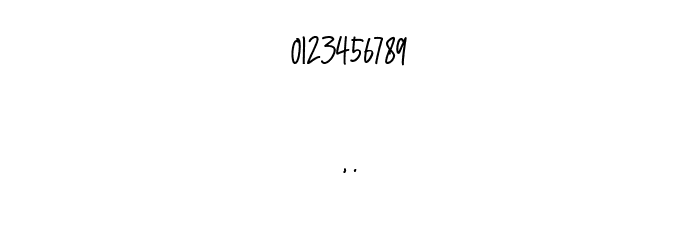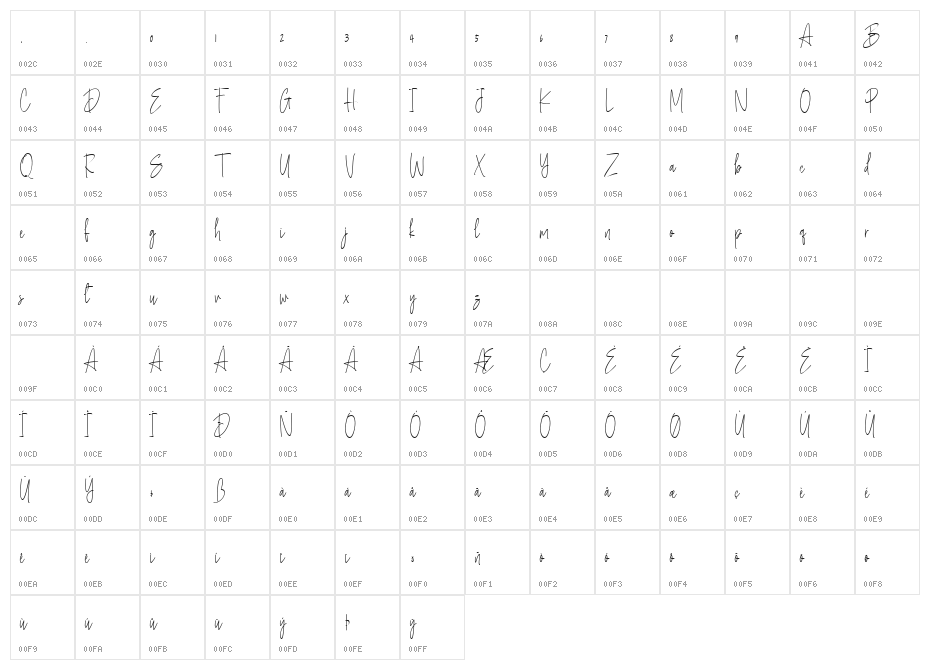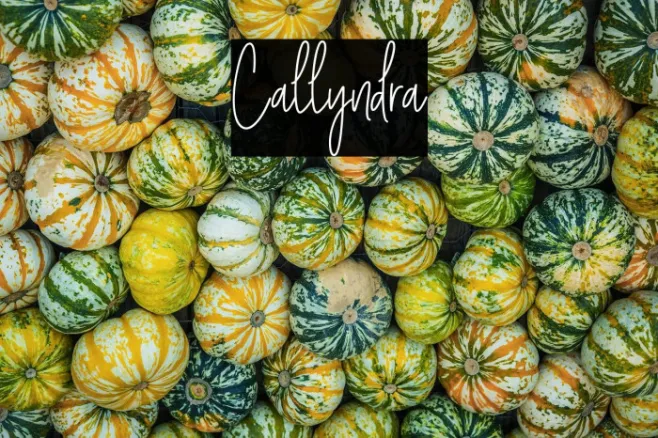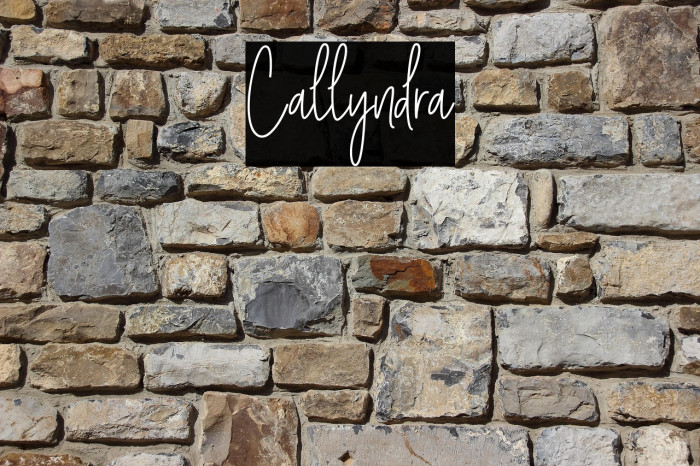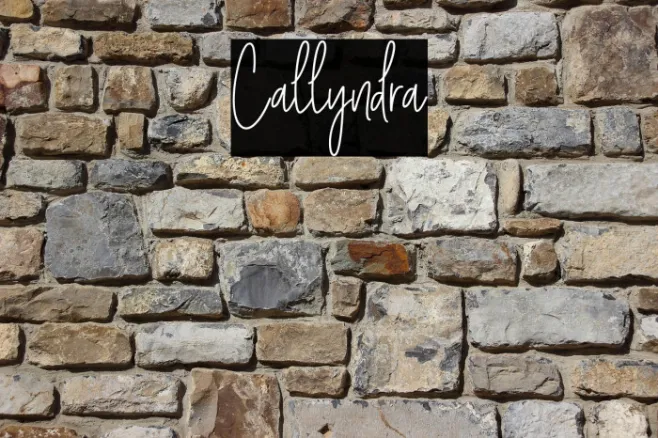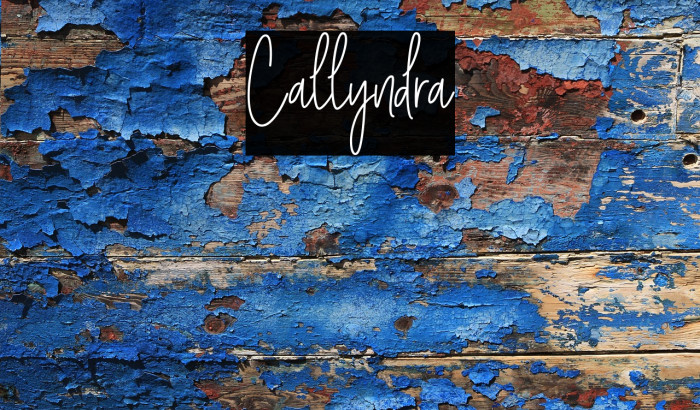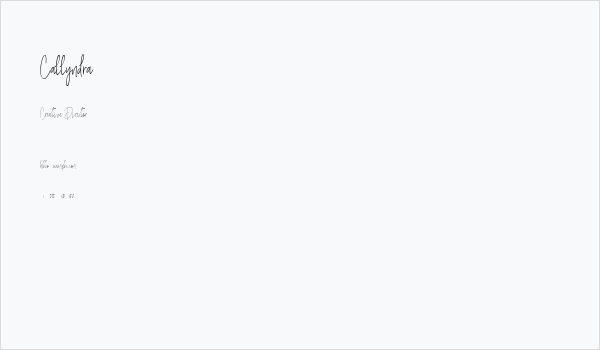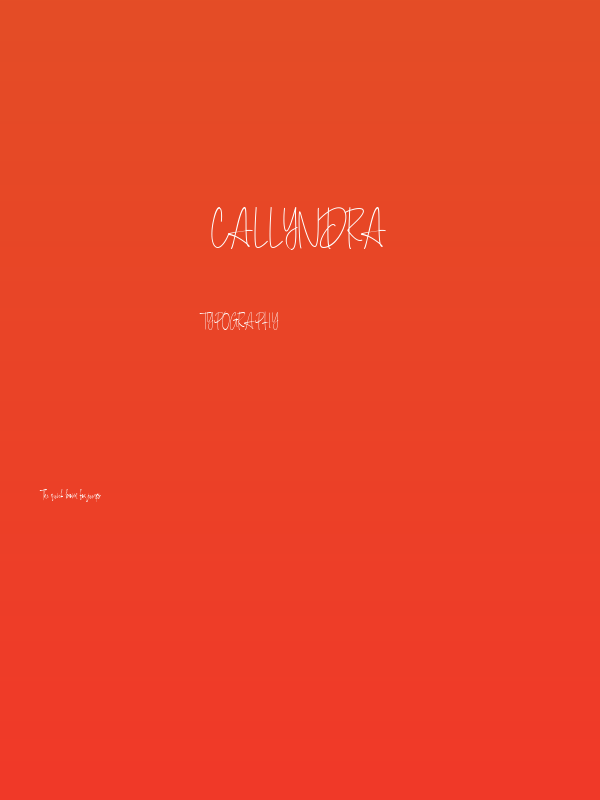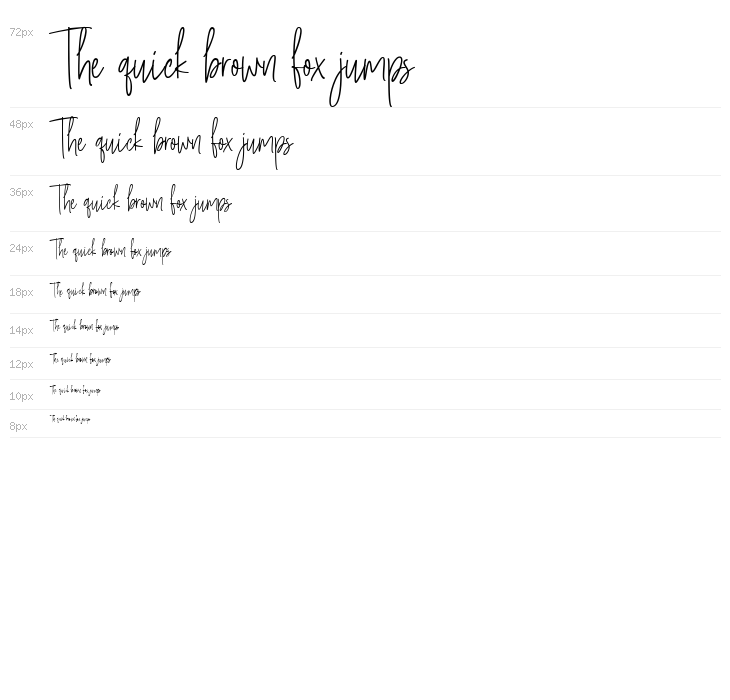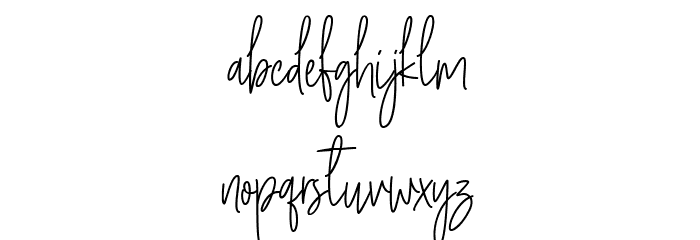
Callyndra Font
Callyndra Description
This font features a playful and casual handwritten style, characterized by its flowing, cursive letters. The uppercase letters are tall and slightly narrow, with a whimsical flair that adds personality to the text. The lowercase letters maintain a consistent style, with smooth curves and a natural, free-flowing appearance. The numbers are similarly styled, offering a cohesive look across all characters. The special characters blend seamlessly with the rest of the font, ensuring versatility in various design applications. Overall, this font exudes a friendly and approachable vibe, making it suitable for creative and informal projects.
| Proposed Projects | Ideal for greeting cards, invitations, personal branding, and creative projects. |